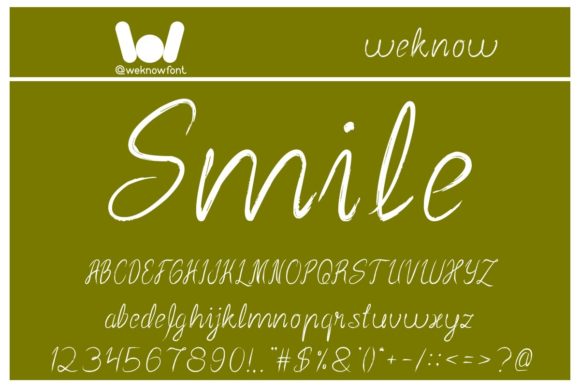
Smile Font
About Smile Font
Smile font is a true embodiment of beauty and style, a brush script typeface that effortlessly bridges the gap between classic calligraphy and modern design. Its graceful strokes and elegant curves create a captivating visual experience that is sure to leave a lasting impression on any project you embark upon.
With a touch of handcrafted sophistication, Smile font adds a touch of charm and warmth to your designs. The careful attention to detail in each letterform captures the essence of traditional calligraphy, while its contemporary twist infuses it with a sense of freshness that’s perfect for today’s creative landscape.
Imagine the Smile font gracing the cover of a wedding invitation, where its flowing brushstrokes evoke a sense of romance and joy, setting the perfect tone for a special day. The letters dance along the baseline with a sense of playfulness, creating a harmonious balance between elegance and liveliness.
But Smile font doesn’t stop at weddings. Its versatile and stylish nature makes it an ideal choice for a variety of projects. From quotes and social media posts to branding materials and logo designs, every use of the font adds a touch of sophistication and allure.
As you work with Smile font, you’ll appreciate its versatility and adaptability. Each letter is a masterpiece, a blend of timeless artistry and modern flair that seamlessly fits into a wide range of design aesthetics. The result is a typeface that’s both captivating and flexible, ready to enhance your creative vision.
Furthermore, Smile font brings a sense of joy and positivity to your designs. Its name reflects its essence, inviting smiles and positive emotions as viewers engage with your work. The flowing strokes and carefully crafted curves exude a sense of happiness that resonates with a wide audience.
Smile font is more than just a typeface; it’s a tool to elevate your projects to new heights of excellence. Its ability to blend classic elegance with contemporary flair makes it a treasure in your typographic toolkit. With every use, you’re infusing your designs with a touch of class and sophistication that leaves a lasting mark.
So, whether you’re designing a poster, crafting a logo, or adding a special touch to your social media feed, let Smile font be your creative companion. Fall in love with its gorgeous and stylish brushstrokes, and watch as your projects reach new levels of beauty and impact.